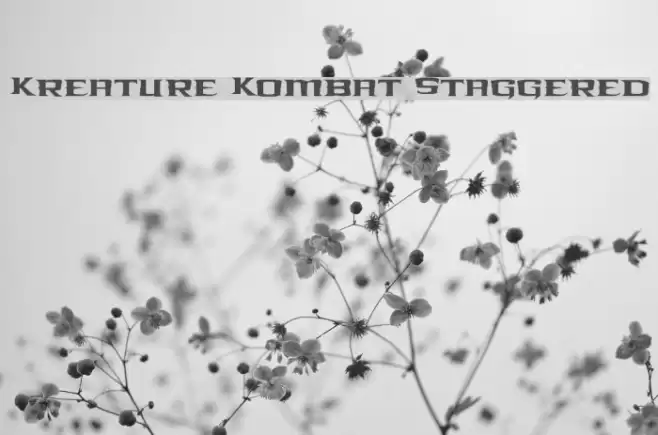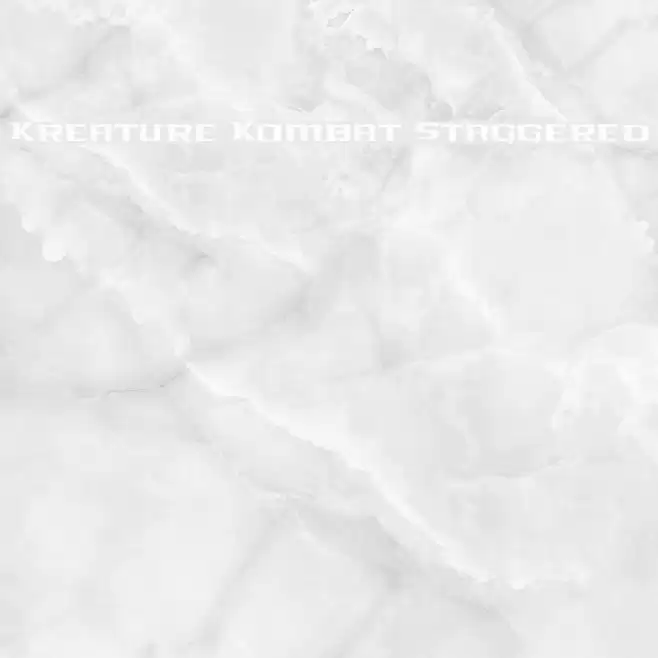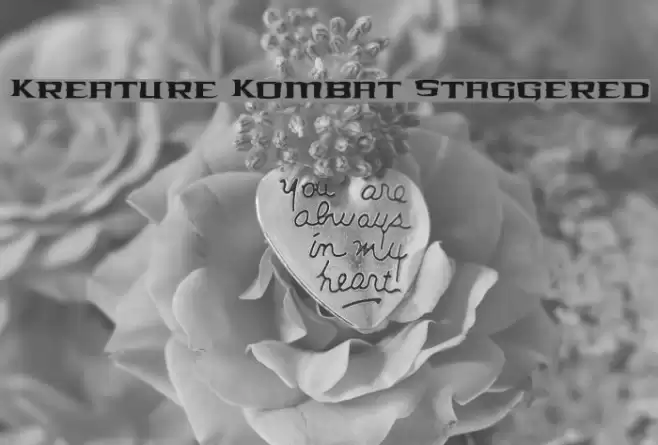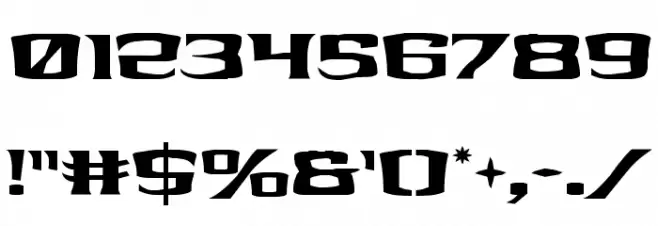
Kreature Kombat Staggered Font
Kreature Kombat Staggered Description
This font features a bold and aggressive style with sharp, angular edges and a slightly staggered appearance. The characters are designed with a strong presence, making them ideal for attention-grabbing headlines or titles. The uppercase letters are particularly striking, with a unique flair that adds a sense of motion and energy. The numbers and special characters maintain the same boldness and angularity, ensuring consistency across all text elements. The overall design is reminiscent of a modern, edgy aesthetic, suitable for projects that require a dynamic and impactful visual statement.
Bold, angular font with a staggered, aggressive style from Uncategorized fonts.
- Proposed Projects: Ideal for video game titles, movie posters, branding for extreme sports, or any project needing a bold, dynamic look.
- Overall Style: Modern, Edgy